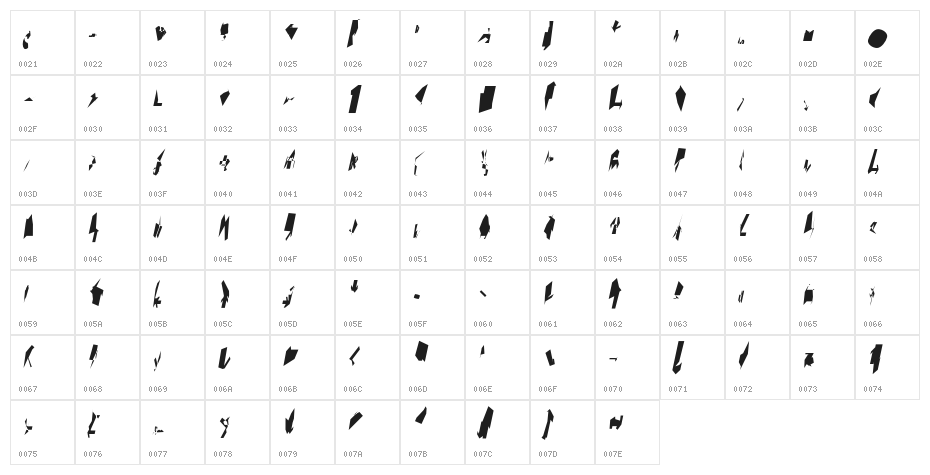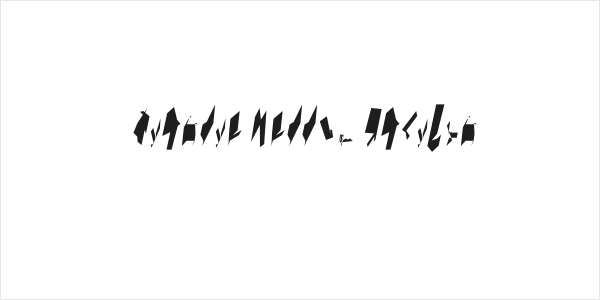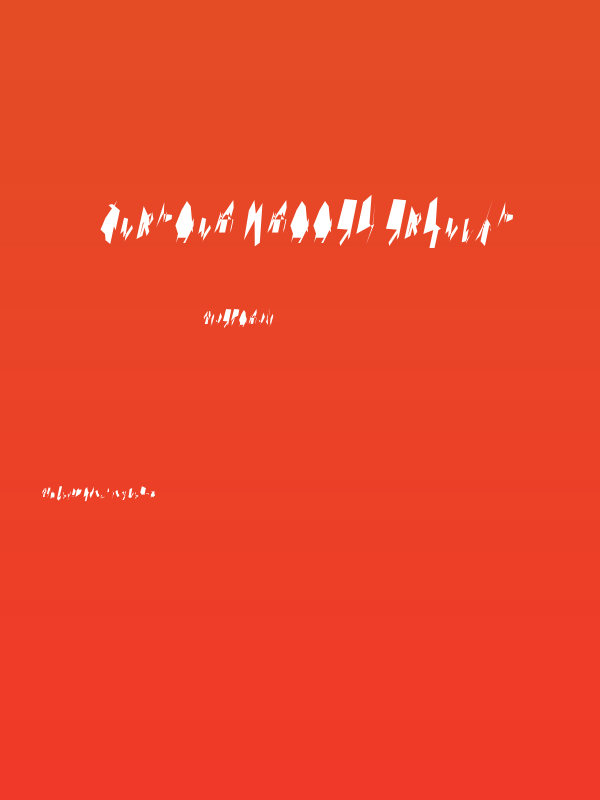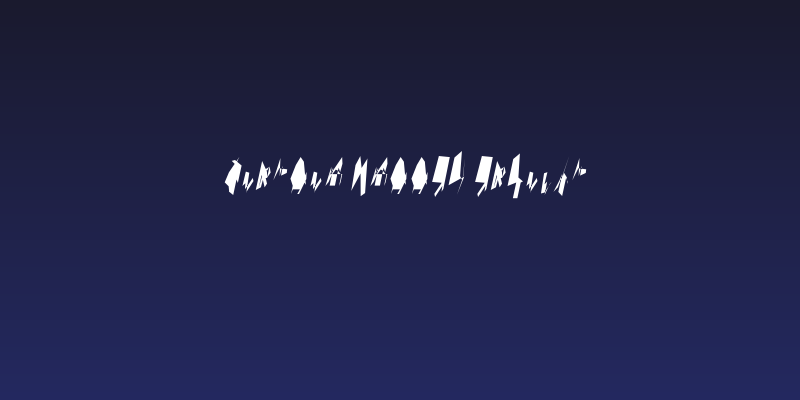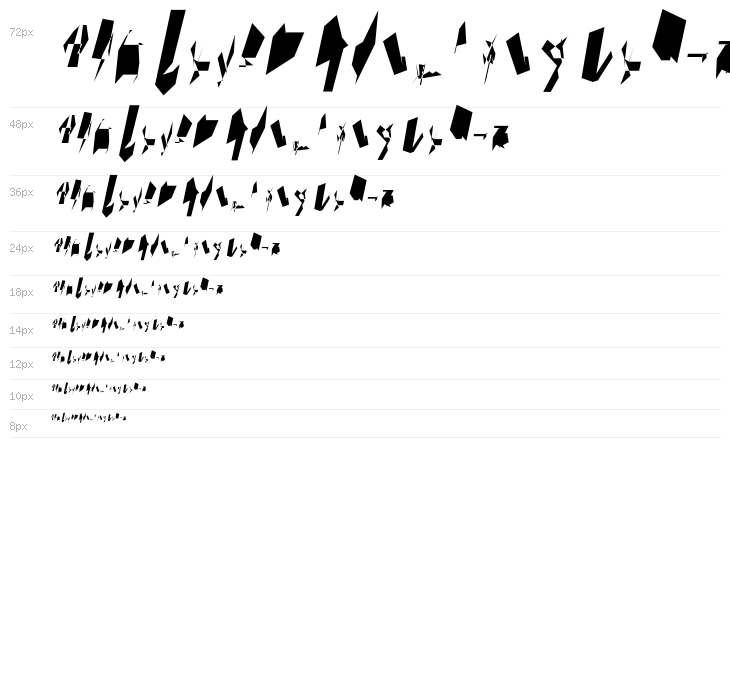
Siberia Narrow Oblique Font
Siberia Narrow Oblique Description
This font exhibits a highly abstract and fragmented design, characterized by sharp angles and irregular shapes. Each character appears to be constructed from a series of jagged, intersecting lines, creating a sense of dynamic movement and energy. The overall appearance is chaotic yet intriguing, with a distinct oblique slant that adds to its unconventional style. The font's unique structure makes it stand out, offering a bold statement in any design context. Its fragmented nature may challenge readability at smaller sizes, but it excels in creating a striking visual impact.
Proposed ProjectsIdeal for avant-garde posters, experimental art projects, or any design seeking a bold, unconventional aesthetic.